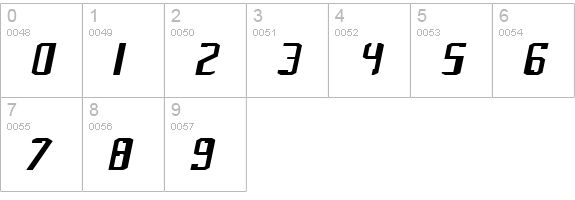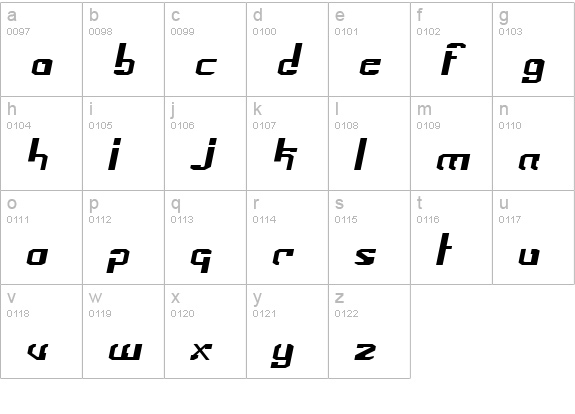
Frak is a modern and stylish font that combines sleek lines with a touch of sophistication. With its clean and contemporary design, Frak is perfect for a wide range of projects, from branding to graphic design and beyond. This versatile font exudes confidence and elegance, making it a great choice for any creative endeavor. The best part? Frak is completely free to download at FontsMarket.com. So you can add this beautiful font to your collection without breaking the bank. Don't miss out on the opportunity to enhance your designs with the timeless appeal of Frak font. Download it today and let your creativity shine!